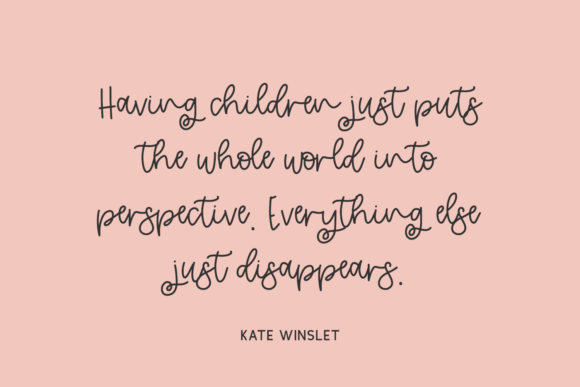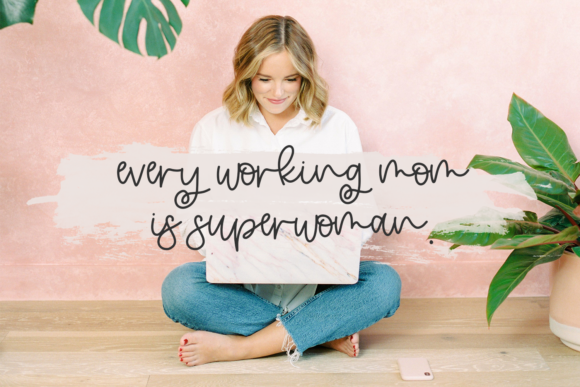
Hello Darling Script Font
db-ku.com - Script & Handwritten -- Hello Darling Script is a delicate and elegant handwritten font. Its distinct and well balanced letters make this font a masterpiece. Fall in love with its incredibly versatile style and use it to create spectacular designs!